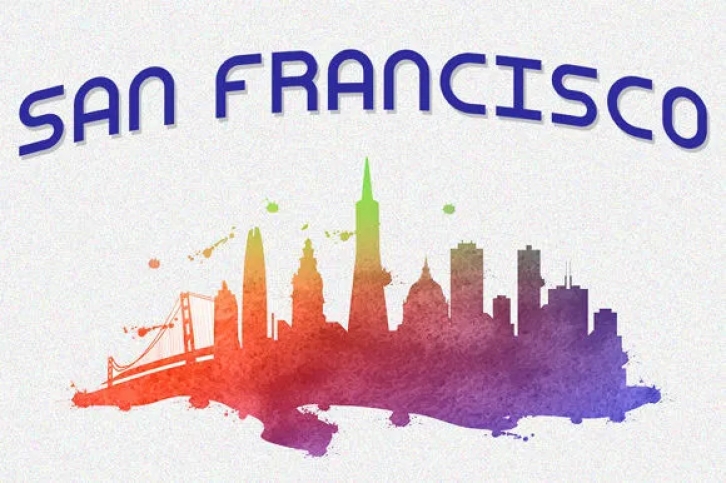
Veritas is a simple and casual sans serif font with an undeniably clean feel. With its neat and beautiful arrangement of letters, this typeface will look outstanding in both formal and non-formal designs.